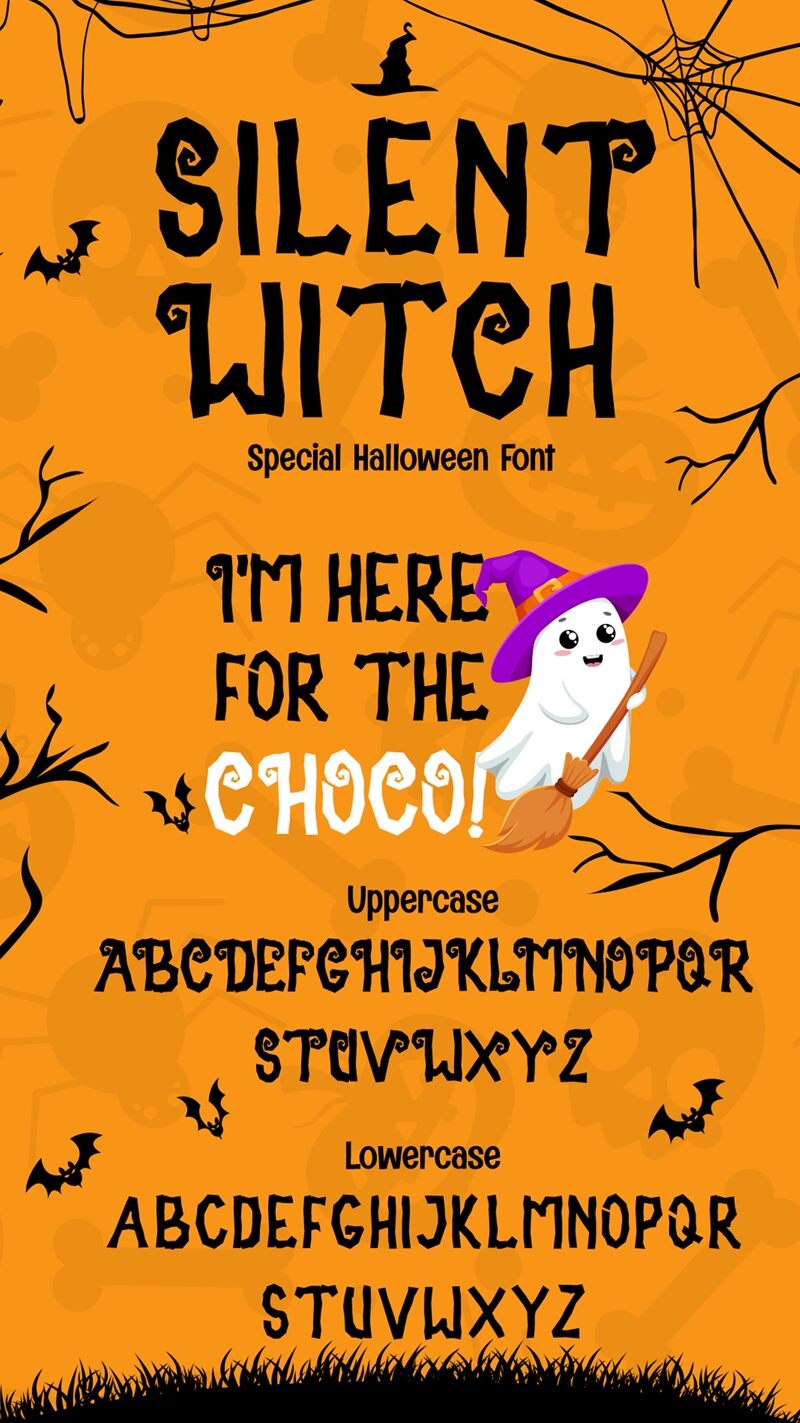
Silent Witch
Silent Witch font by Cikareotype Studio is a free Halloween display font. Tall, jittery letterforms wobble like candle flames, with scratchy edges and occasional spiral curls that feel hand-inked and a little wicked. The rhythm is playful but legible, giving headlines a spooky grin without turning into a mess—great when you need atmosphere and clarity in the same frame.
Using Silent Witch, your titles snap on party posters, haunted house flyers, treat-bag stickers, seasonal menus, YouTube thumbnails, and kids’ spooky story covers. The lanky shapes love big sizes and roomy spacing, so let them breathe. Quick pairing tip: set subheads in a clean grotesque sans to steady the vibe while the main words cast the spell of this free font.